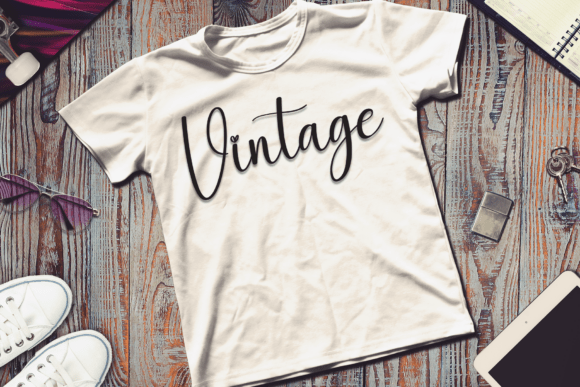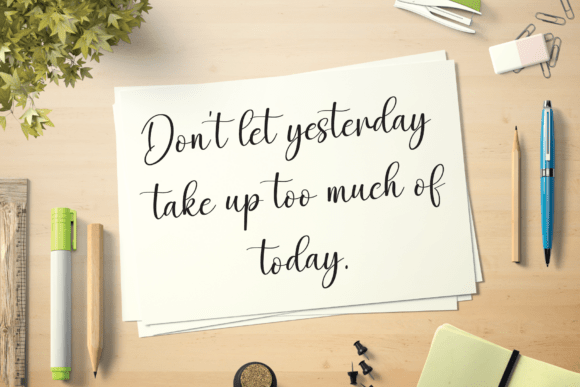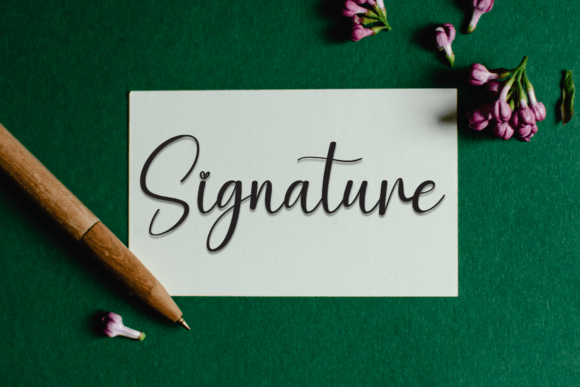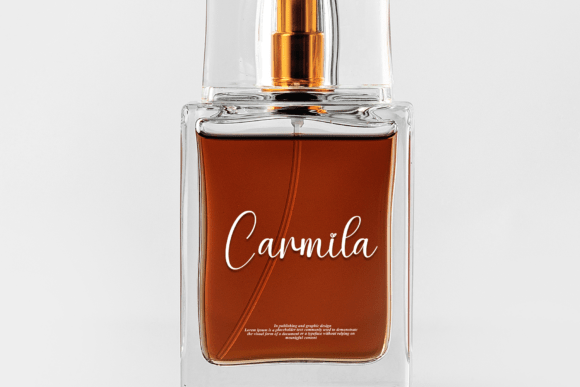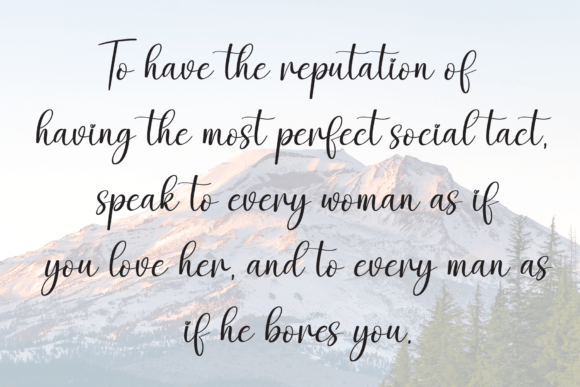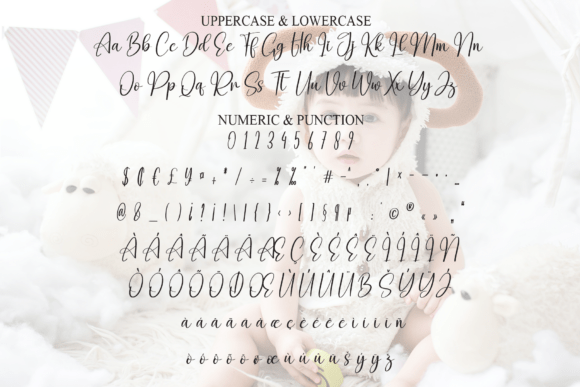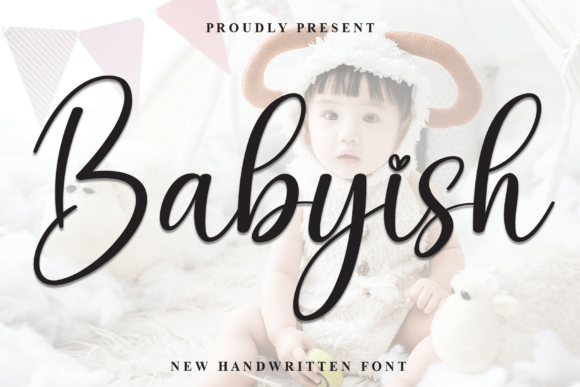
Babyish Font: Elevate Your Designs with Elegant Handwritten Charm
In the world of typography, few fonts manage to strike a balance between elegance and modernity as effortlessly as Babyish. This stylish handwritten script font has been gaining popularity among designers and crafters for its unique ability to add a touch of sophistication and warmth to any project. Whether you’re working on branding, invitations, social media content, or any other design endeavor, Babyish is an excellent choice for those looking to infuse their work with a personal, refined charm.
The Characteristics of Babyish Font
Babyish is distinguished by its flowing strokes and organic curves, which give it a distinctly elegant and modern appearance. Unlike more traditional fonts, Babyish brings a level of fluidity and natural beauty to the page, making it perfect for designs that require a bit of personality and flair. Its handwritten nature lends a personal touch, making each letter and word feel crafted with care and attention to detail.
One of the key benefits of the Babyish font is its versatility. It can be used across a wide range of design applications, from professional branding and luxury invitations to engaging social media posts. For branding, Babyish can help create a unique and memorable identity that sets a business apart from its competitors. For invitations, it adds a level of sophistication and elegance that is sure to impress. And for social media, Babyish can elevate posts and stories, making them more visually appealing and engaging to followers.
Why Choose Babyish for Your Projects?
There are several reasons why designers and crafters are choosing Babyish for their projects. First, its elegant and modern design ensures that any project looks current and stylish. Second, its handwritten nature adds a personal touch that can help create a deeper connection with the audience. Third, Babyish is incredibly versatile, making it suitable for a wide range of design applications. Finally, its ability to bring warmth and sophistication to a project makes it an invaluable asset for designers looking to create beautiful, impactful work.
Tips for Using Babyish Effectively
To get the most out of Babyish, consider the following tips:
- Pair with Complementary Fonts: When using Babyish alongside other fonts, choose fonts that complement its elegant and modern style. Sans-serif fonts or serif fonts with a minimalist design work well.
- Adjust Letter Spacing: For optimal readability, especially in longer texts, adjust the letter spacing to ensure that words and sentences flow smoothly.
- Consider Size and Weight: Experiment with different sizes and weights of Babyish to create visual hierarchy and emphasis in your designs.
- Use for Headers and Highlights: Babyish is particularly effective when used for headers, titles, and highlights. Its elegance and charm can draw attention and add a touch of sophistication.
Babyish font is a beautiful, stylish handwritten script that brings a unique blend of elegance and modern flair to any design project. Its flowing strokes, organic curves, and personal touch make it an ideal choice for designers and crafters looking to add warmth and sophistication to their work. With its versatility and effortless charm, Babyish is sure to become a go-to font for a wide range of design applications. Whether you’re working on branding, invitations, social media, or any other project, Babyish is a font that can help elevate your designs and make them truly unforgettable.